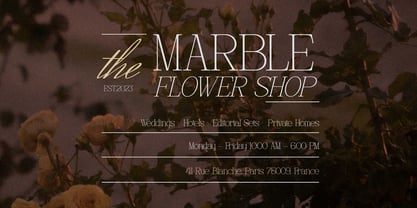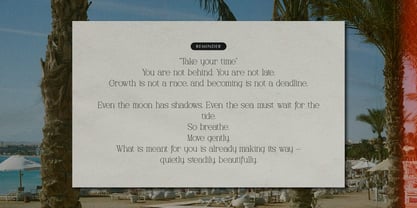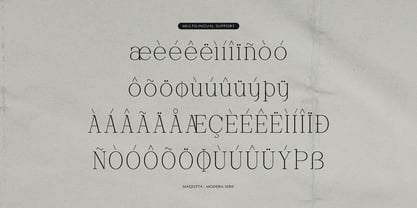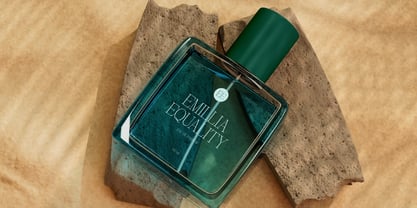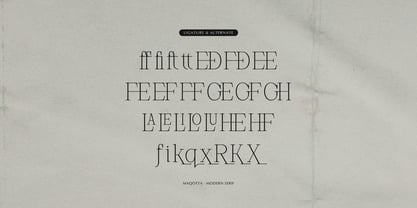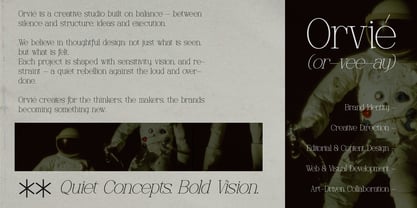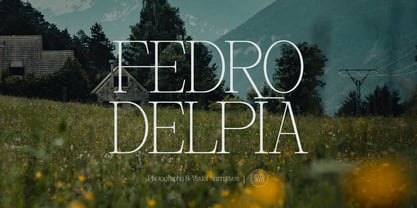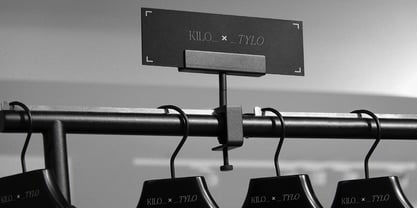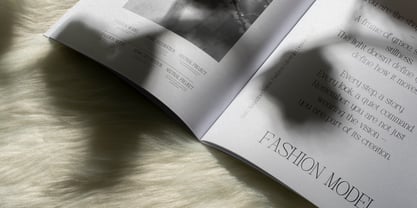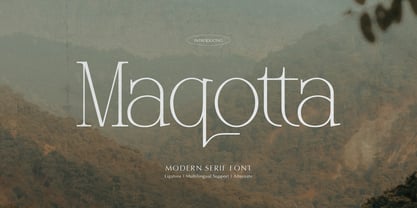
Maqotta
by Tini Fitriani
The Maqotta Font Family was designed by and published by Tini Fitriani. Maqotta contains 2 styles and family package options. More about this family
Maqotta | Modern Serif Font, from Gracetypestudio, suitable for any projects such as: logos, branding projects, homeware designs, product packaging, mugs, quotes, posters, shopping bags, t-shirts, book covers, name card, invitation cards, greeting cards, label, photography, watermark, special events, and all your other lovely projects that need a Cutout Handwritten taste.
• Regular and Italic
• Standard glyphs
• Alternate and Ligature
• Fonts include multilingual support